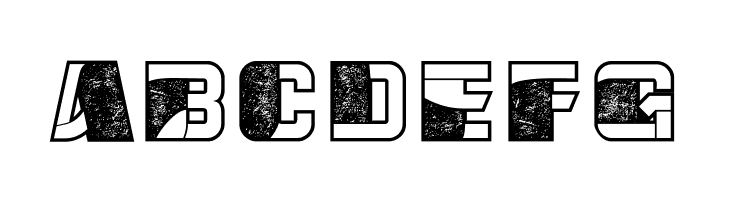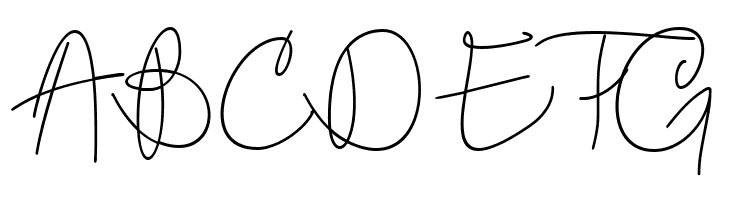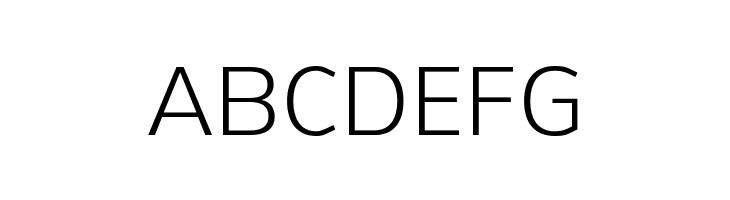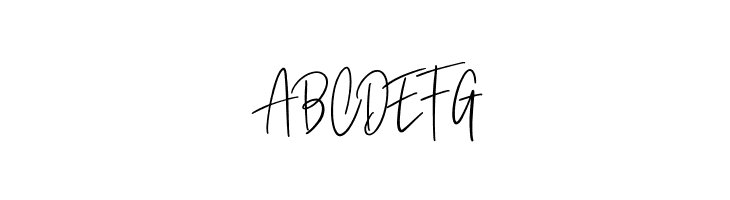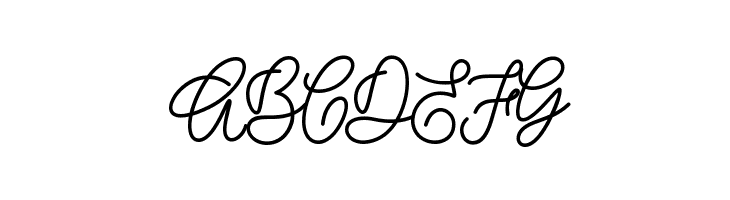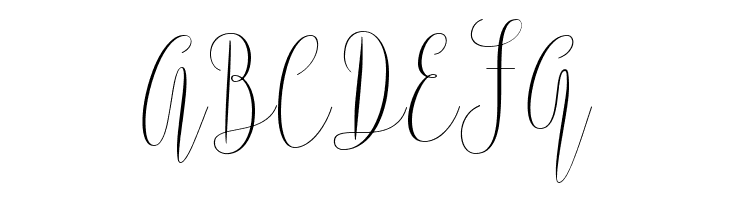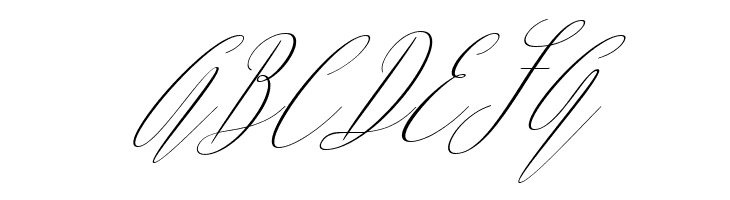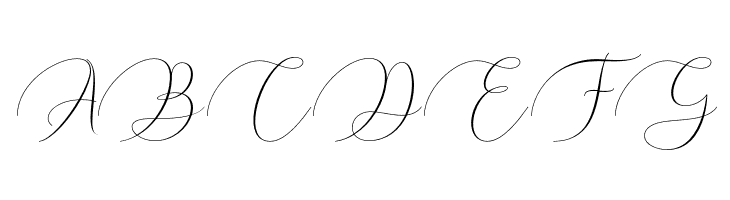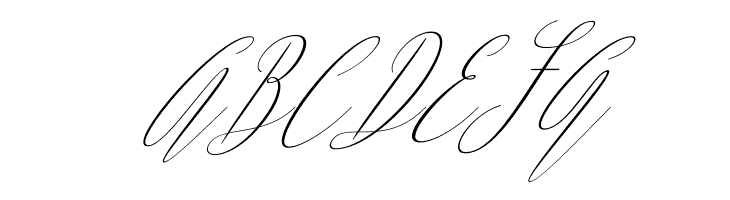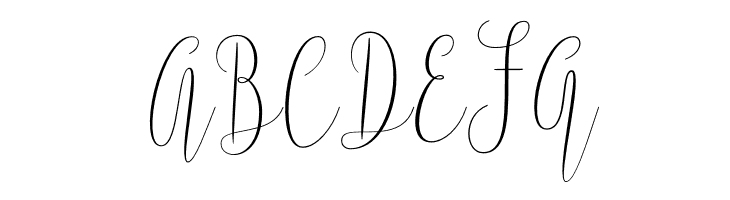
An ornate and decorative font with elaborate swirls and flourishes.
A modern, light sans-serif font with clean lines and excellent readability.
A bold, flowing script font with a dynamic, hand-lettered style.
A flowing, cursive script with elegant loops and artistic flair.
A bold, playful font with exaggerated strokes and a cartoonish style.
A playful, handwritten font with flowing, interconnected letterforms.
A modern, geometric font with tall, narrow characters and consistent stroke widths.
A bold, gothic-inspired font with sharp, angular lines and dramatic serifs.
A bold serif font with angular serifs and a modern twist.
A bold, angular font with a distressed, edgy style.
A bold, decorative font with a distressed texture and geometric design.
A graceful script font with flowing, elongated strokes and high contrast.
An elegant, flowing script font with high contrast and graceful curves.
An elegant, flowing script font with a refined and sophisticated style.
A flowing, cursive script font with an elegant italic slant.
An elegant script font with flowing, cursive letterforms and sophisticated style.
An elegant script font with fluid, cursive strokes and high contrast.
A lively handwritten font with fluid, dynamic strokes and a playful style.
A modern sans-serif font with geometric shapes and uniform strokes.
A bold, modern font with thick strokes and a strong presence.
A bold, italicized font with thick strokes and dynamic slant.
A bold, modern sans-serif font with clean, geometric lines.
A bold and italic font with a modern, dynamic style.
A bold, modern typeface with thick strokes and excellent legibility.
A bold, italic font with a modern and dynamic style.
A sleek, modern, light italic font with smooth curves and balanced spacing.
A modern sans-serif font with clean lines and balanced proportions.
A modern, italic sans-serif font with medium weight and normal spacing.